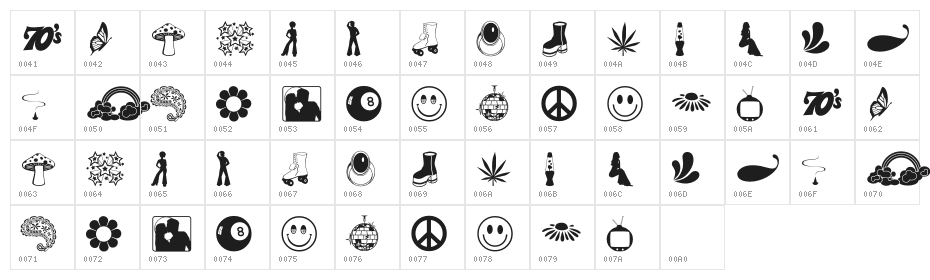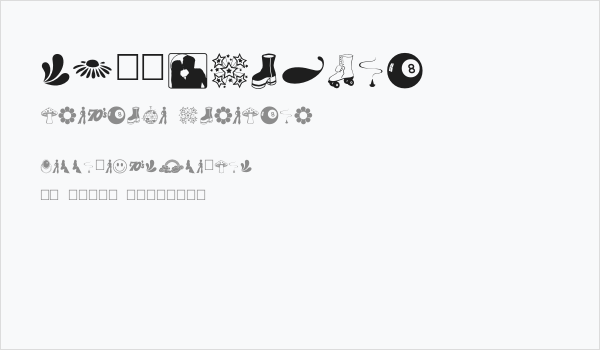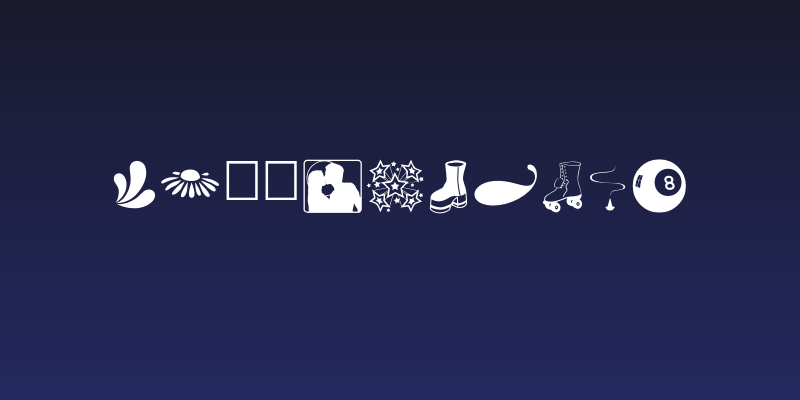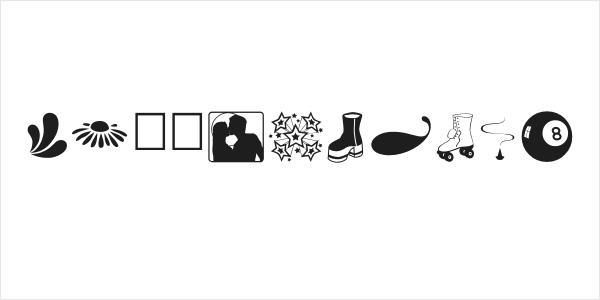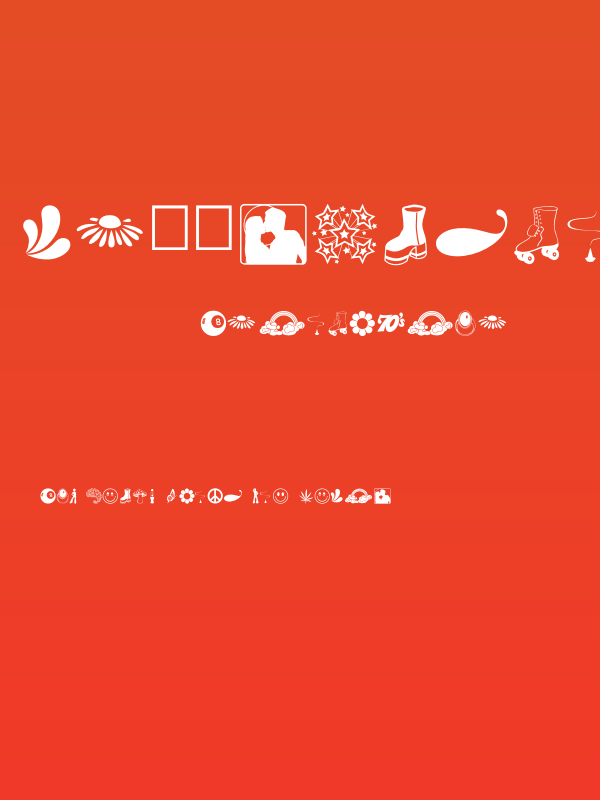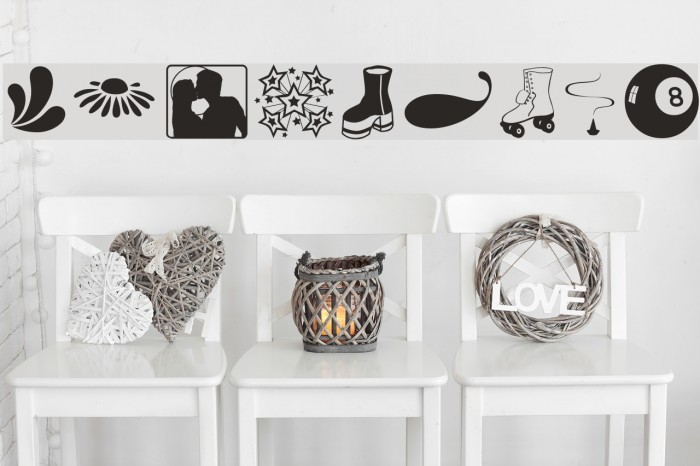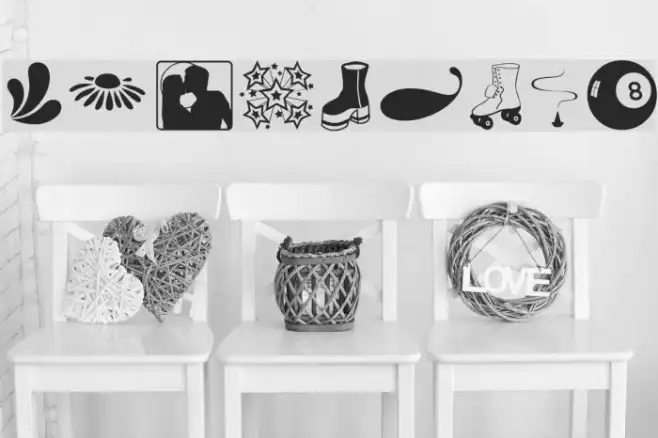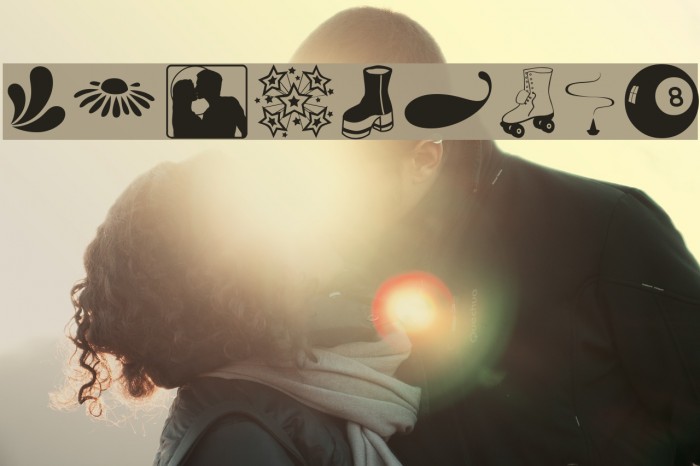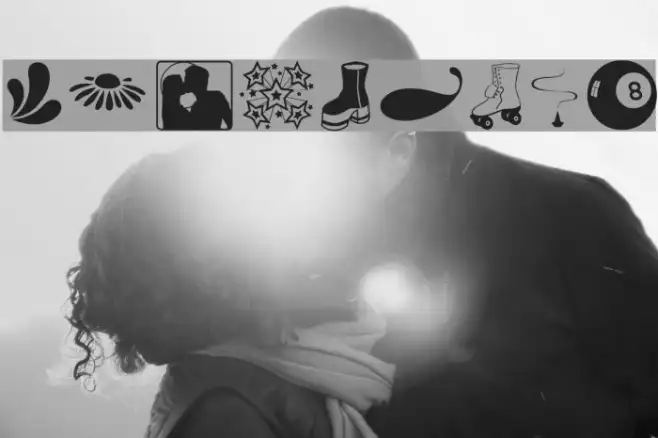
My70sDingOT Font
My70sDingOT Description
This is not a traditional font but rather a collection of 1970s-themed icons and symbols. It includes various retro elements such as disco balls, peace signs, roller skates, and lava lamps, capturing the essence of the 70s era. The icons are bold and playful, each representing a different aspect of the cultural and social trends of the time. The style is decorative and nostalgic, perfect for projects that aim to evoke a sense of fun and retro charm.
| Use Case | Logos, Decorative elements |
| Proposed Projects | Ideal for retro-themed designs, party invitations, event posters, and any project seeking a nostalgic 70s vibe. |